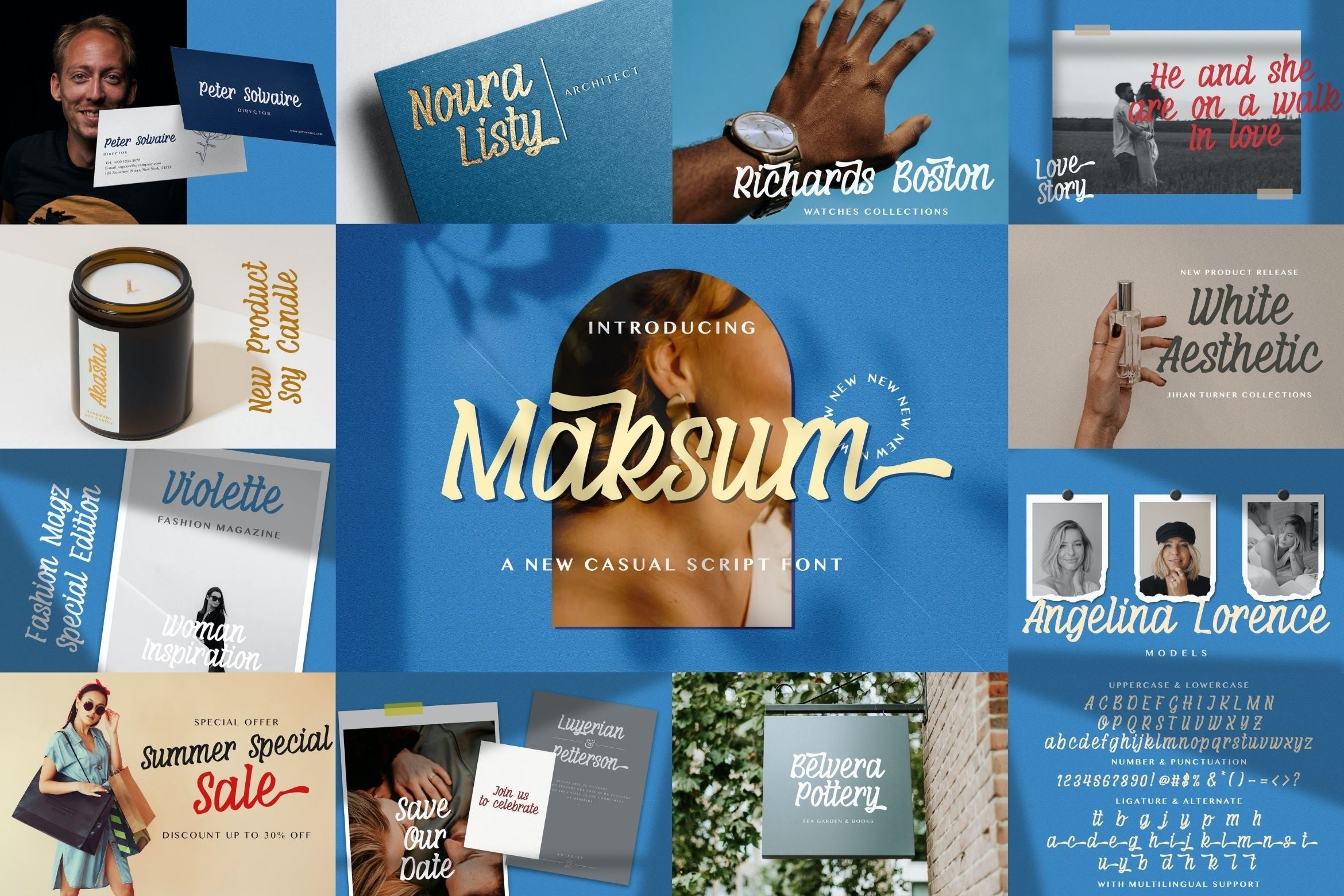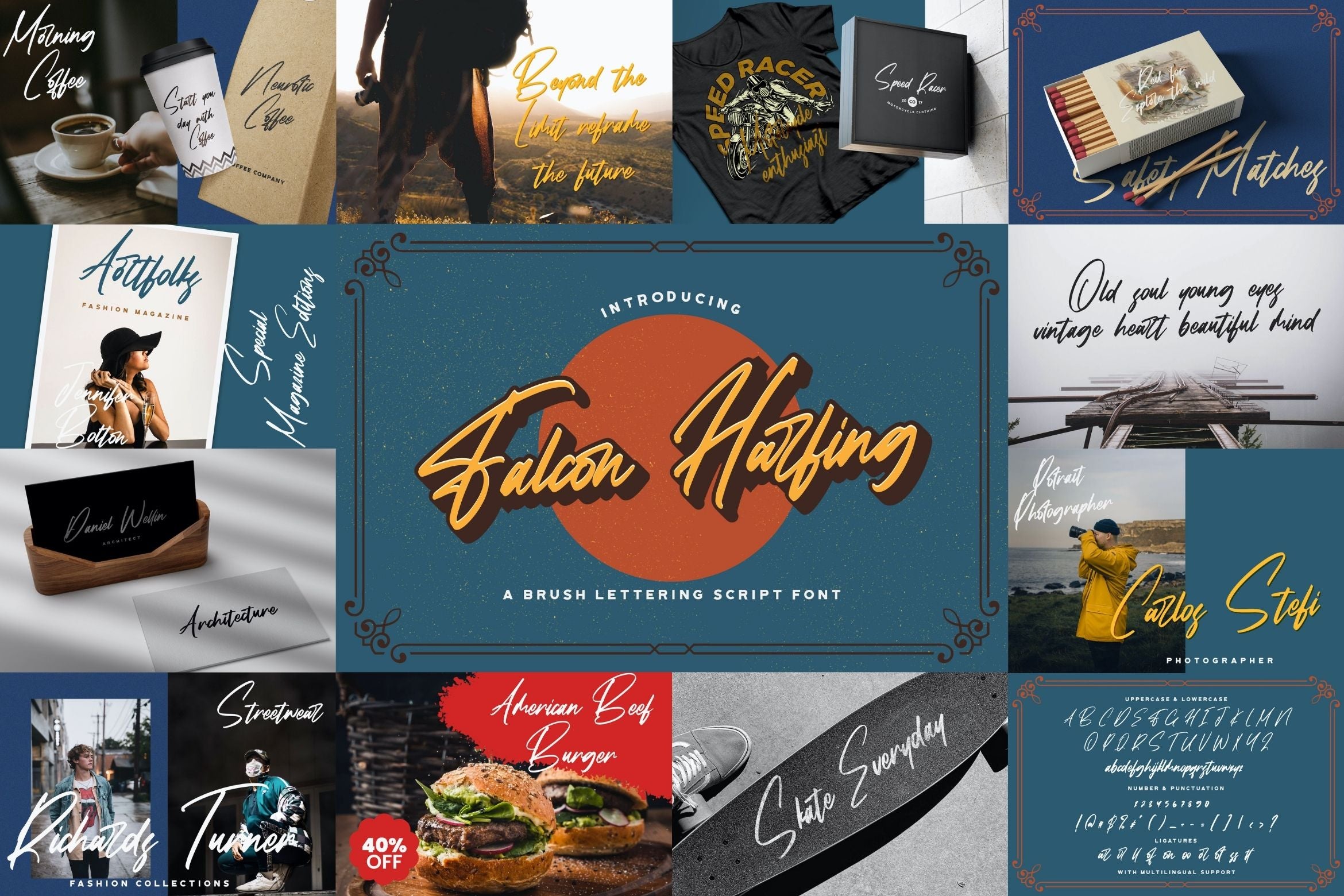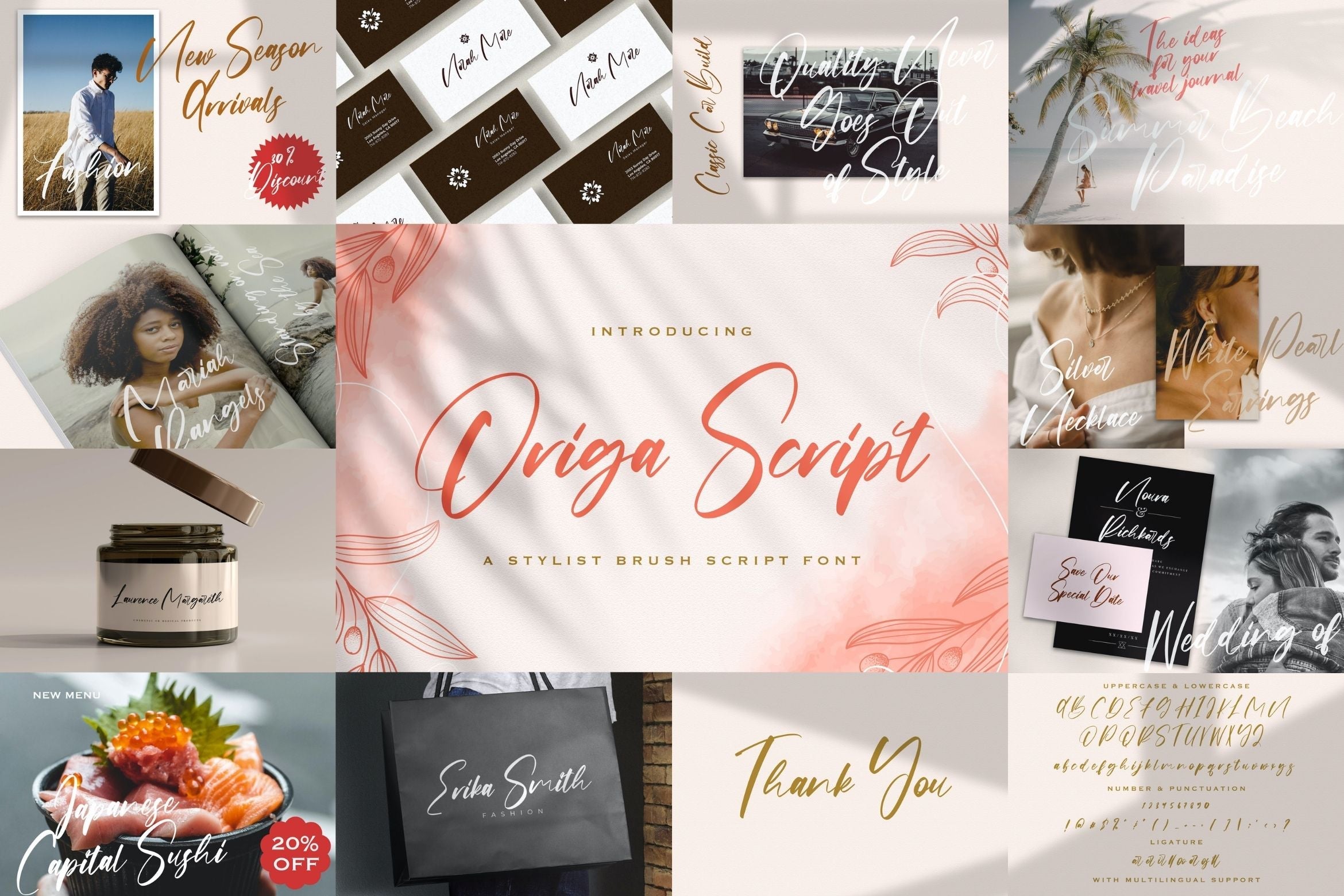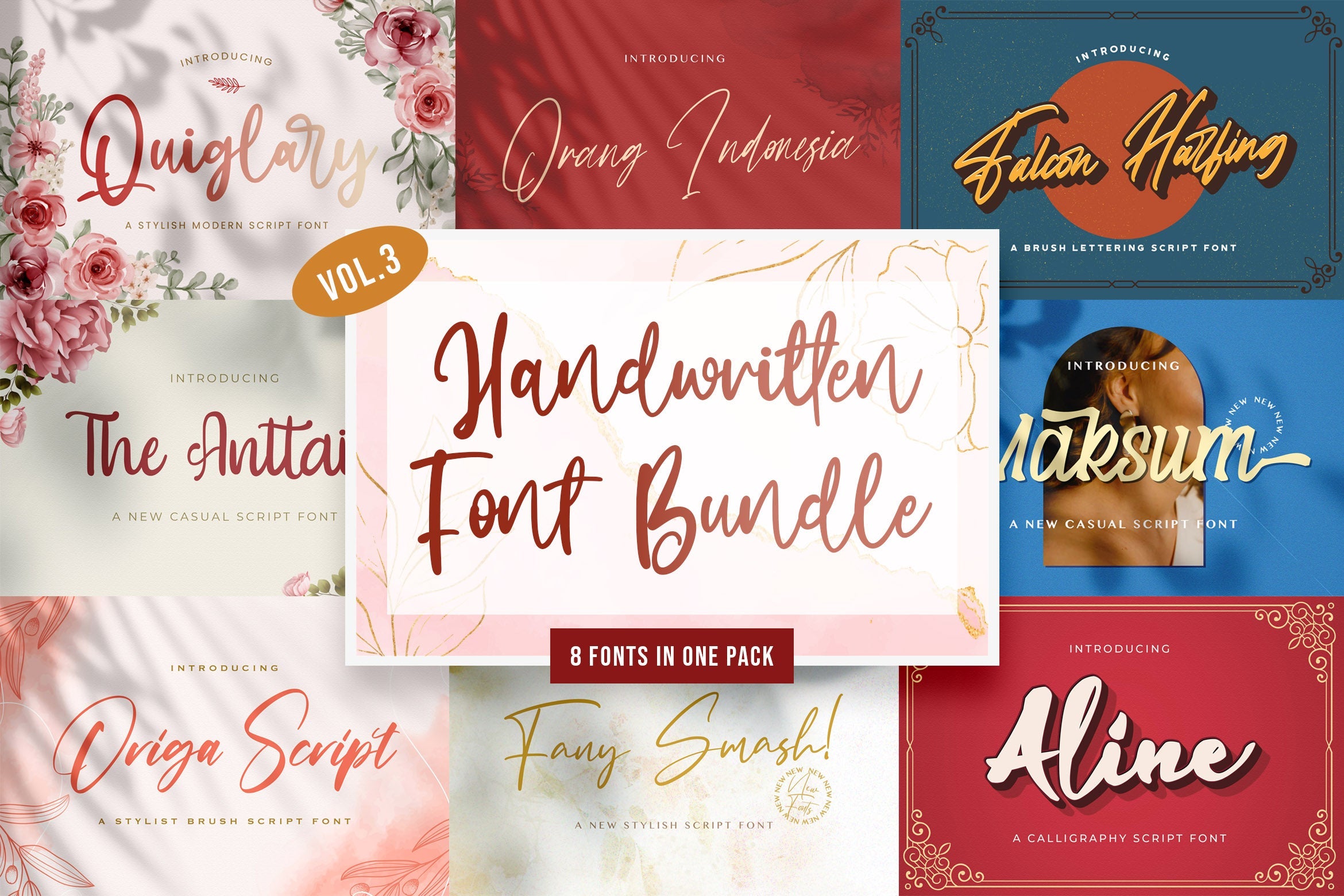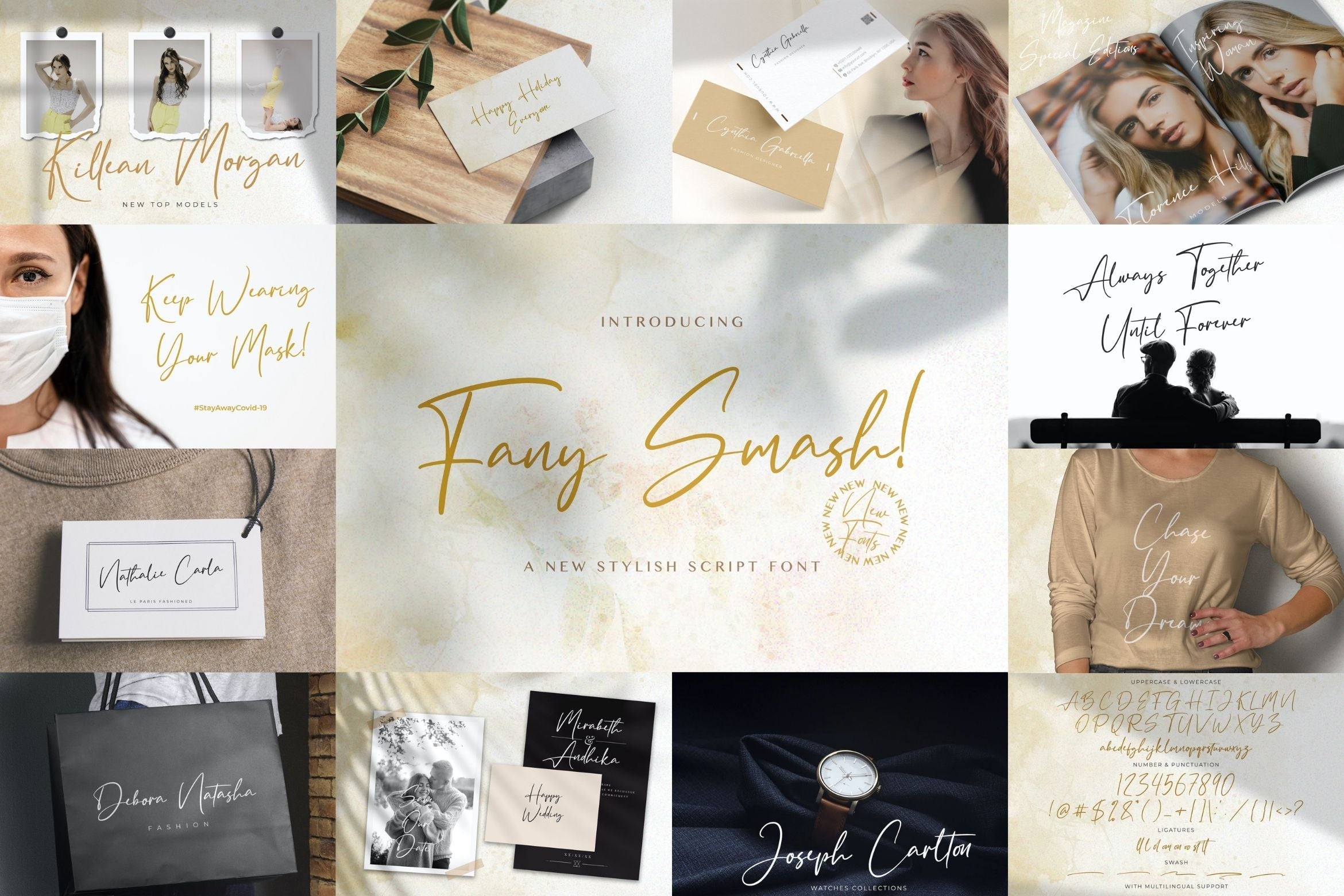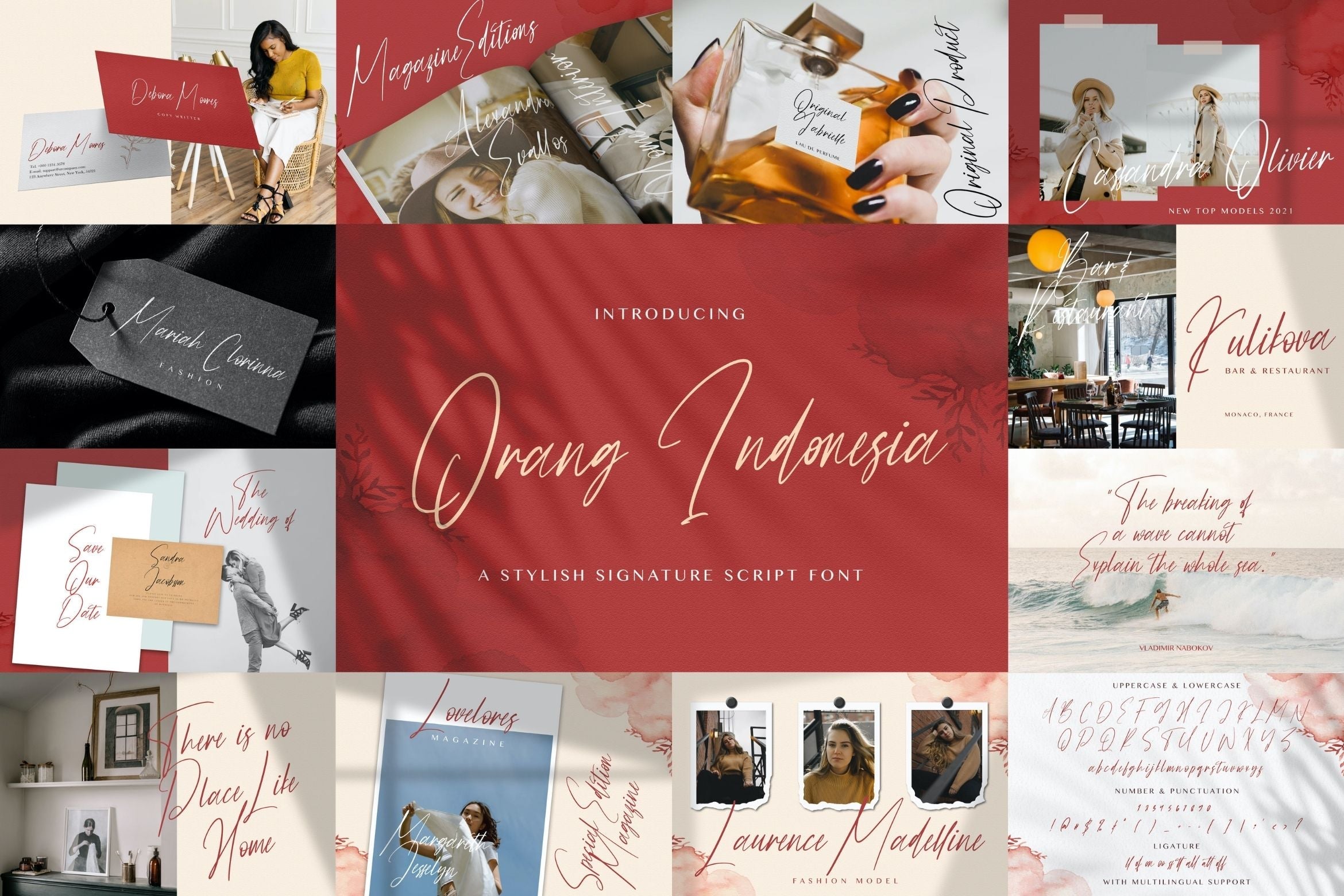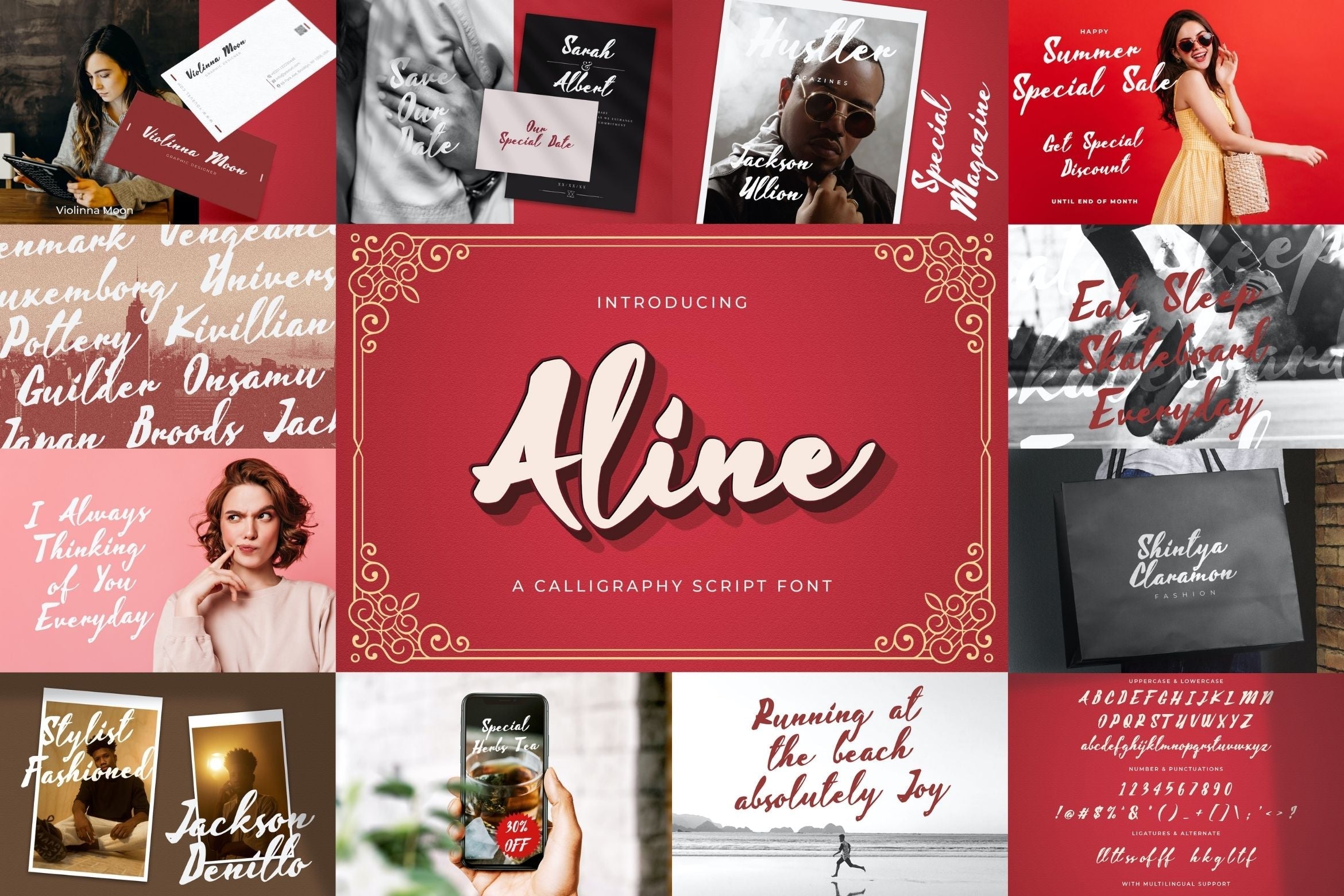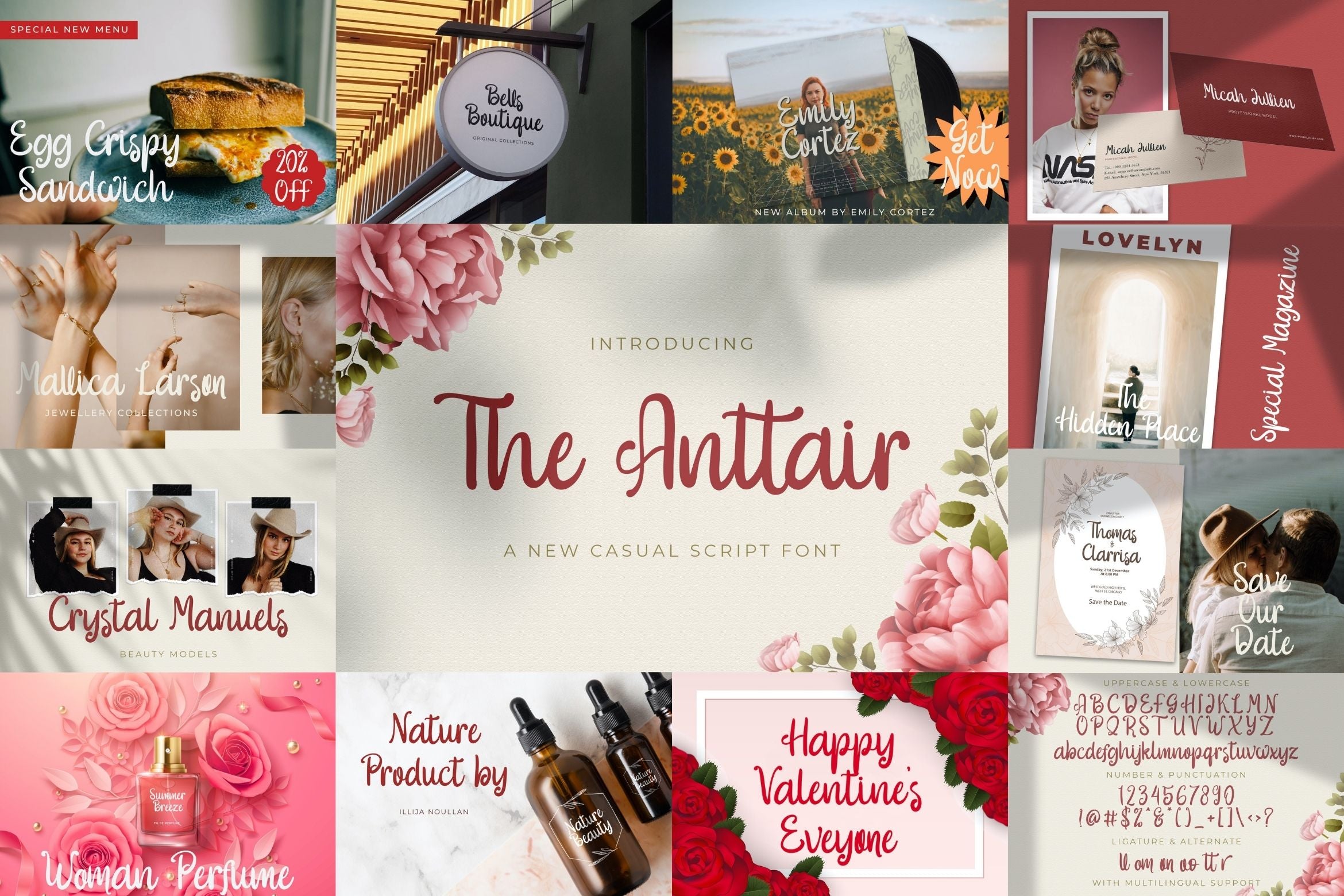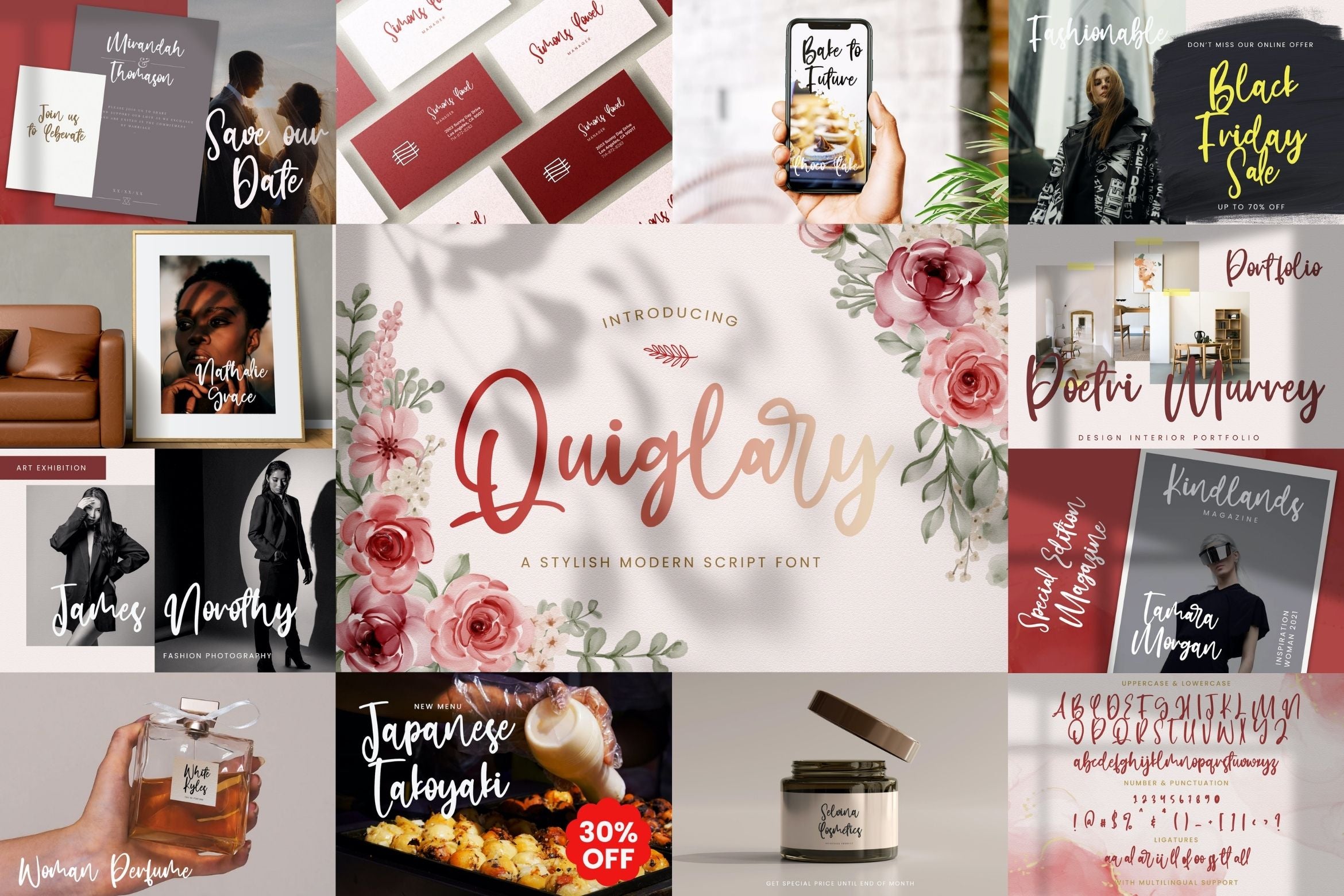
Handwritten Font Bundle Vol 3
About Handwritten Font Bundle Vol 3
Handwritten Font Bundle Vol 3 is a delicate, elegant and flowing handwritten font. This font bundle contains 8 high quality handwritting script font, it will look simply magical in a wide range of design projects, and also that will look particularly adept when used in logos, branding, packaging design, and much more. It has beautiful and well balanced characters and as a result, it matches a wide pool of designs. Add it to your most creative ideas and notice how it makes them come alive! FONTS INCLUDED : 1. Aline 2. Maksum 3. The Anttair 4. Falcon Harfing 5. Orang Indonesia 6. Origa Script 7. Quiglary 8. Fany Smash Fonts available in format : OTF, TTF, WOFF, WOFF2